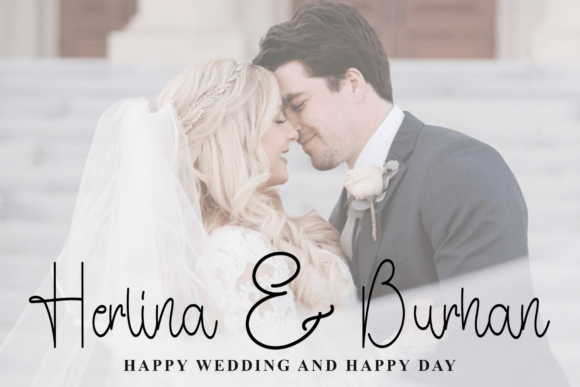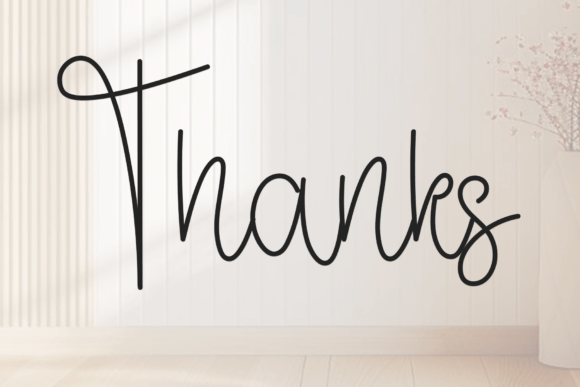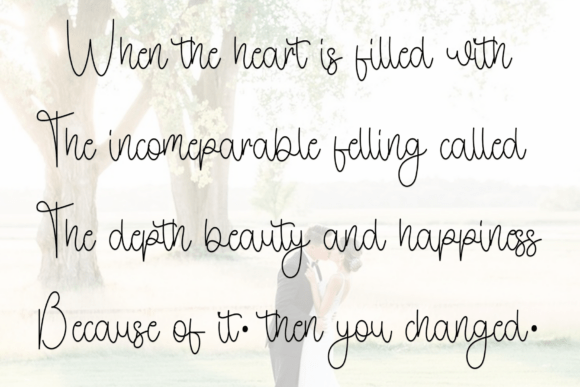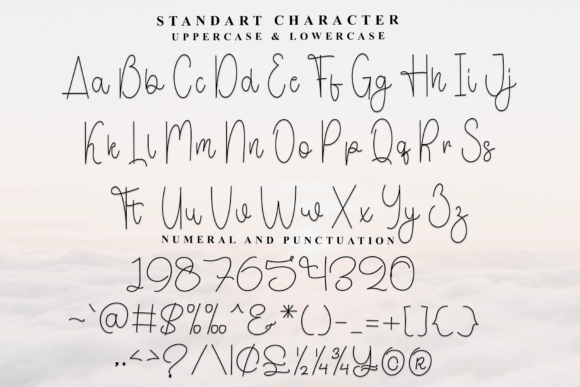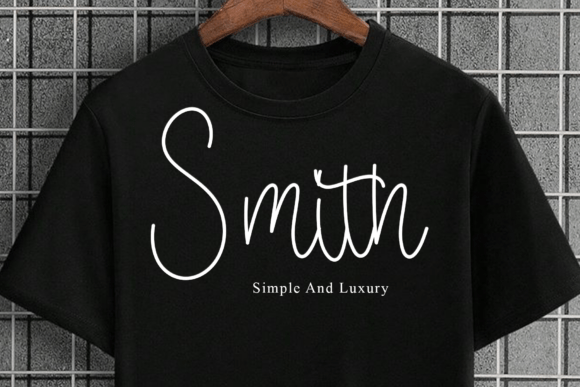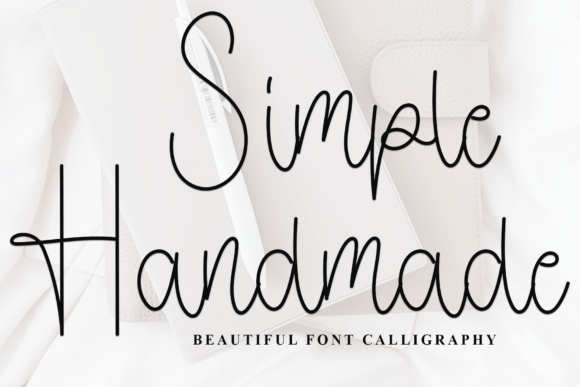
Better Handmade Font: Add a Touch of Holiday Magic to Your Designs
The holiday season is upon us, and what better way to get into the spirit than with a festive and merry typeface? Look no further than the Better Handmade Font, a decorative font that’s perfect for adding a touch of enchantment to your designs. With its whimsical flair and nostalgic ambiance, this font is sure to bring cheer to your greeting cards, gift tags, and holiday-themed projects.
The Charm of Better Handmade Font
Better Handmade Font is a beautifully crafted typeface that captures the essence of the holiday season. Its decorative elements and playful design make it perfect for creating eye-catching designs that are sure to stand out. Whether you’re a designer, crafter, or DIY enthusiast, this font is sure to inspire your creativity and add a touch of magic to your projects.
With Better Handmade Font, you can create stunning holiday-themed designs that will leave a lasting impression. From greeting cards and gift tags to holiday posters and social media graphics, this font is perfect for any project that requires a touch of festive flair. Its whimsical design and nostalgic ambiance make it ideal for creating designs that are both fun and sophisticated.
One of the best things about Better Handmade Font is that it’s PUA encoded, which means you can access all of the amazing glyphs and ligatures with ease. This makes it simple to create beautiful designs that are full of intricate details and decorative elements. With PUA encoding, you can unlock the full potential of this font and take your designs to the next level.
What You Can Create with Better Handmade Font
The possibilities are endless with Better Handmade Font. Here are just a few ideas to get you started:
- Greeting cards: Create stunning holiday greeting cards that will leave a lasting impression on your loved ones.
- Gift tags: Add a touch of festive flair to your gifts with custom gift tags made using Better Handmade Font.
- Holiday posters: Create eye-catching posters that will add a touch of holiday magic to your home or office.
- Social media graphics: Use Better Handmade Font to create stunning social media graphics that will make your holiday posts stand out.
Why Choose Better Handmade Font?
There are many fonts to choose from, but Better Handmade Font stands out from the rest. Here are just a few reasons why:
- Unique design: Better Handmade Font has a unique and whimsical design that’s sure to add a touch of magic to your designs.
- PUA encoded: With PUA encoding, you can access all of the amazing glyphs and ligatures with ease.
- Festive flair: This font is perfect for adding a touch of festive flair to your holiday designs.
- Nostalgic ambiance: Better Handmade Font has a nostalgic ambiance that’s sure to bring cheer to your designs.
Better Handmade Font is a beautifully crafted typeface that’s perfect for adding a touch of holiday magic to your designs. With its decorative elements, whimsical flair, and nostalgic ambiance, this font is sure to bring cheer to your greeting cards, gift tags, and holiday-themed projects. Its PUA encoding makes it easy to access all of the amazing glyphs and ligatures, and its unique design sets it apart from other fonts. Whether you’re a designer, crafter, or DIY enthusiast, Better Handmade Font is sure to inspire your creativity and take your designs to the next level.